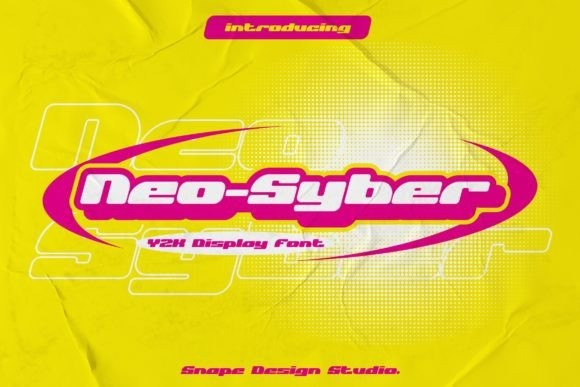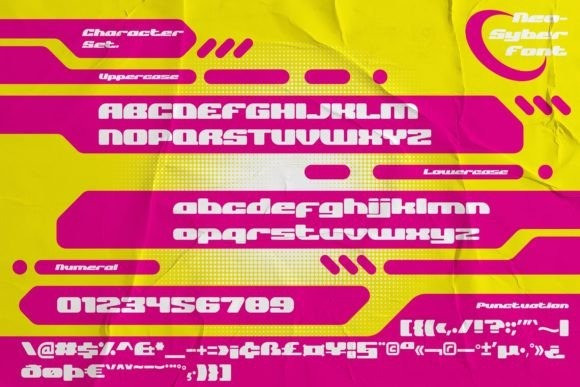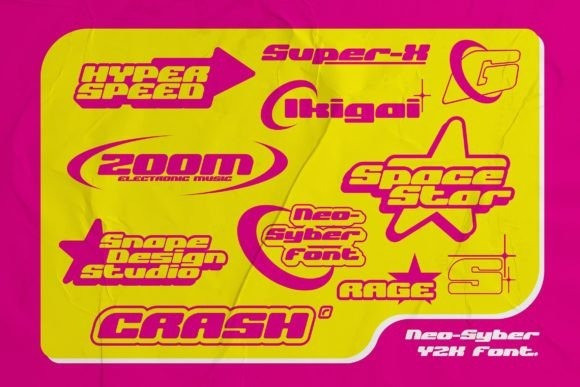
Neo Syber Font
Neo Syber is a futuristic display font. Heavy influence by Y2K design era through music and their pop culture, perfect for technology, digital, space galaxy theme. Also suitable for movies, films, logos, posters, games, book covers, headlines, titles, and many more projects.